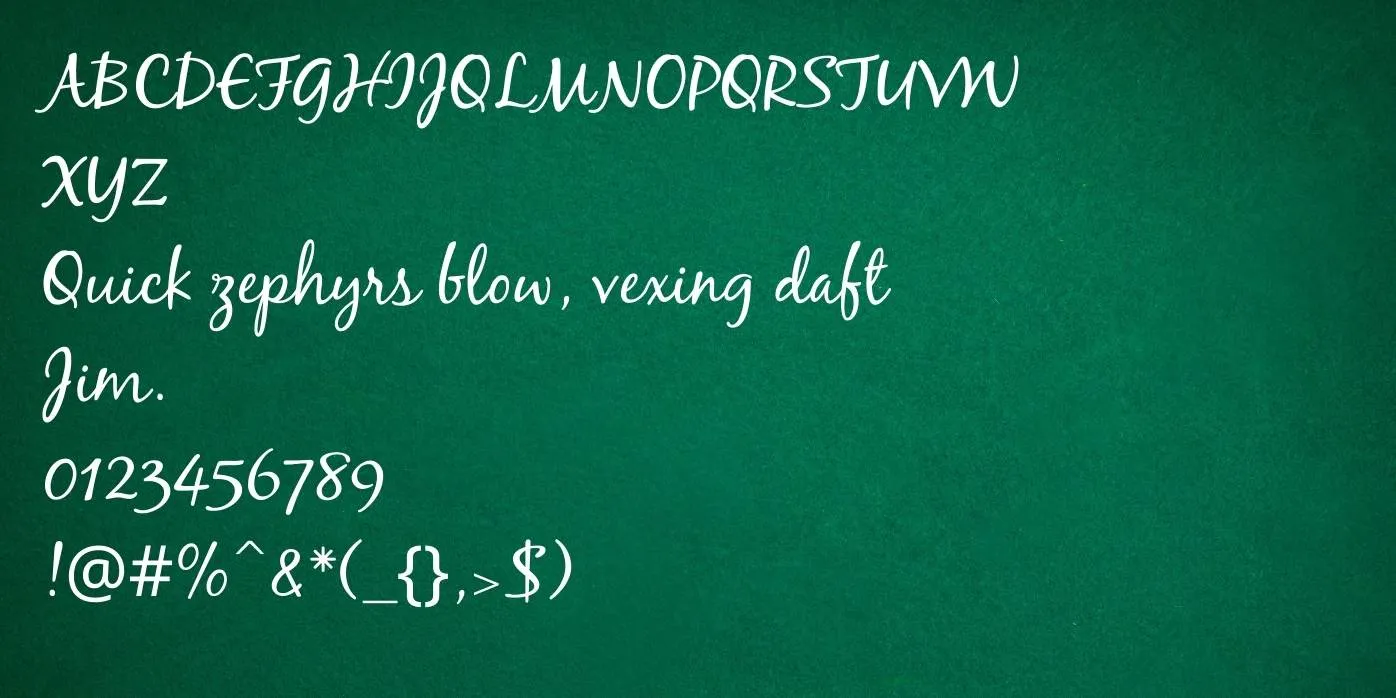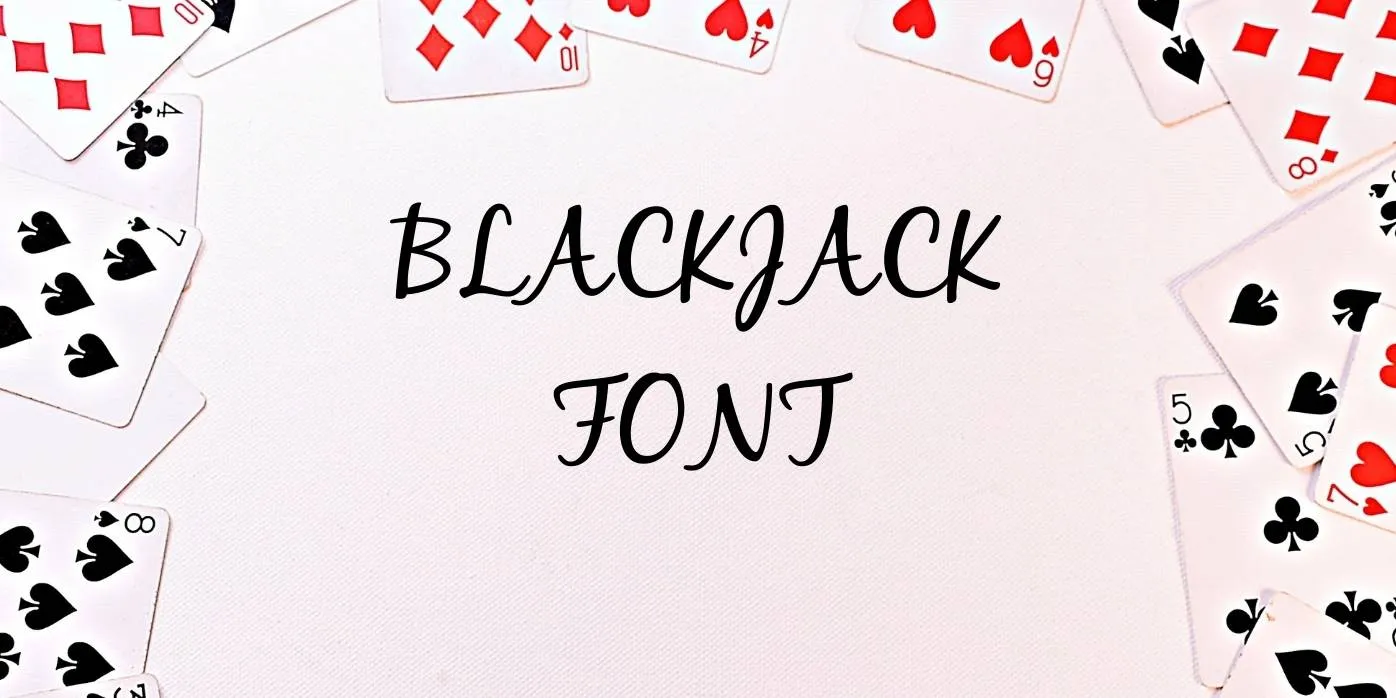
Blackjack Font
Here, we present a wonderful typeface known as BlackJack Font. This typeface belongs to the script typeface family. This font family was developed and published by Typadelic Foundry. This typeface has neat and clean textures.
This awesome typeface includes two famous weights. Also, this typeface includes more than 4 outstanding weights. You can use this typeface for Adobe and Canva. It has keen and clean features.
This typeface will provide the best and most attractive results.